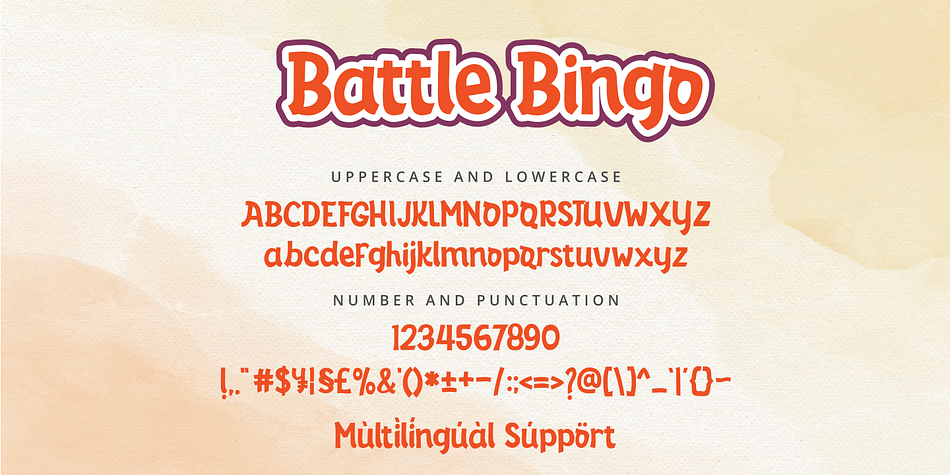
Battle Bingo
Battle Bingo is a display font family published by Zeenesia Studio.
Battle Bingo is a childish, readable display font featuring the perfect amount of friendliness. Whether you’re using it for crafting, digital designing, presentations or greeting cards making, it’s perfect!
– Standard glyphs
– Multilingual
– Symbols and Number